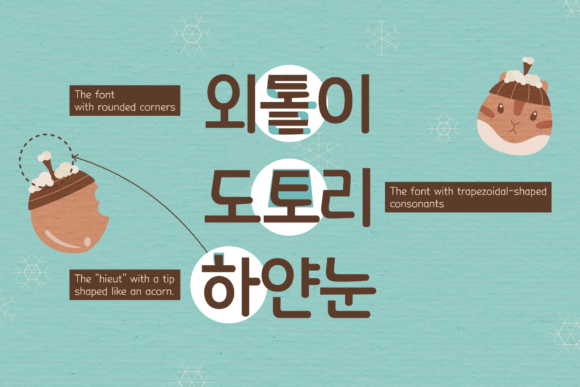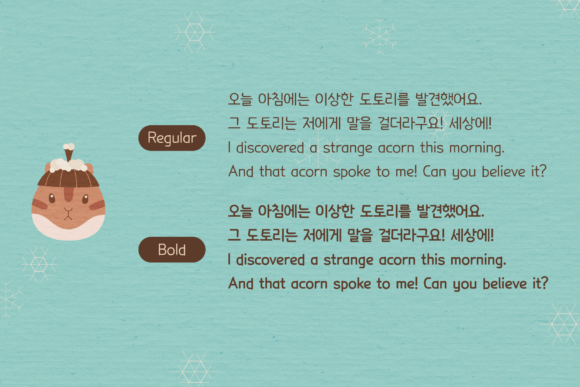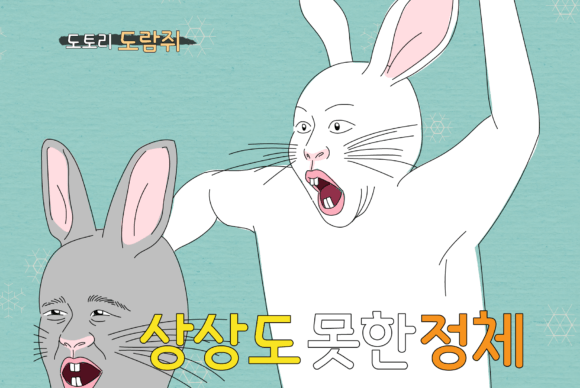
Hu Mymyoh Kr Font: Free Download Now
HU Mymyoh KR is a cute sans-serif font that can be used to express any lively or active moment.
πŸ‘€ Author heummdesign